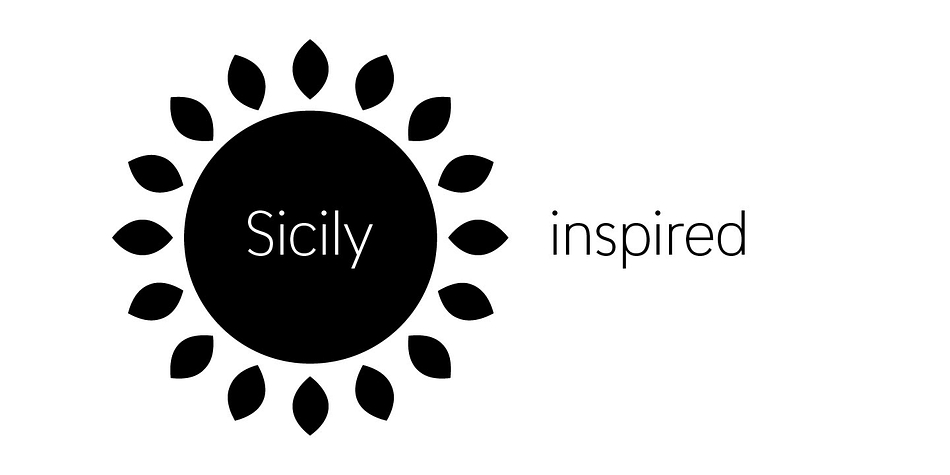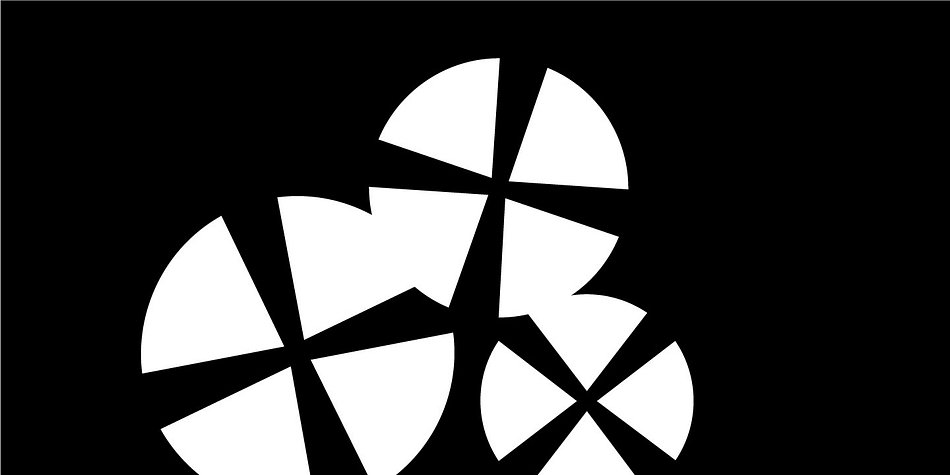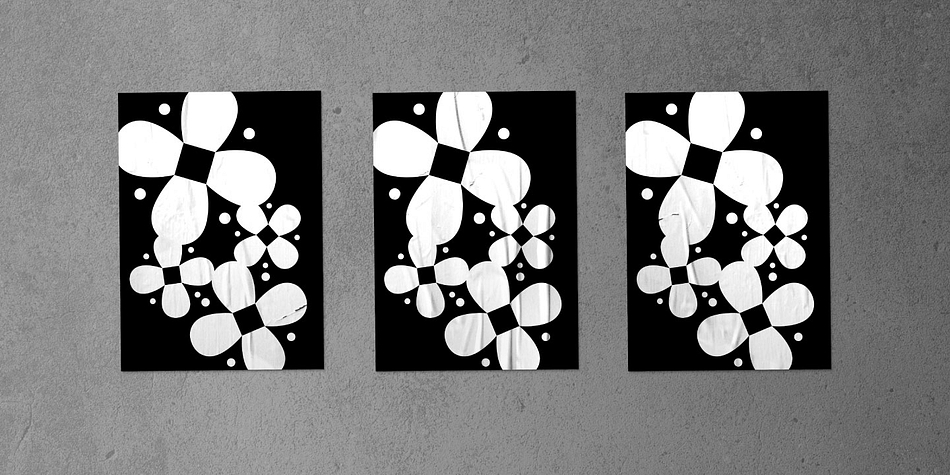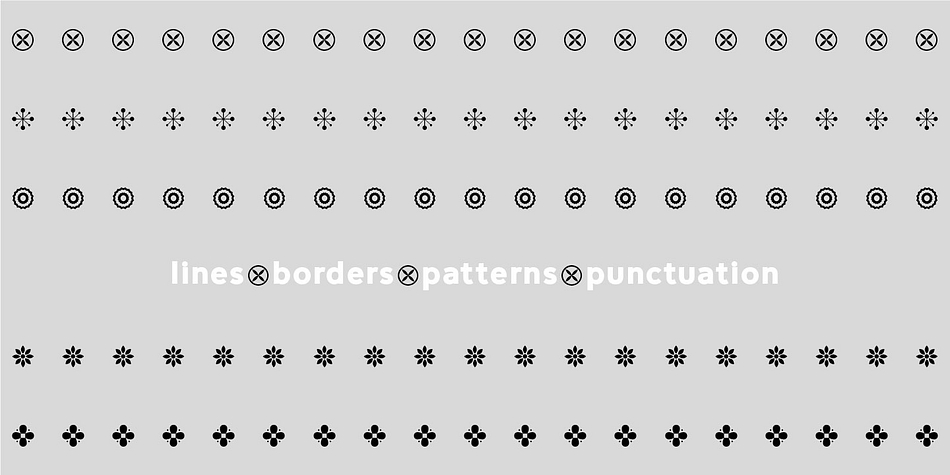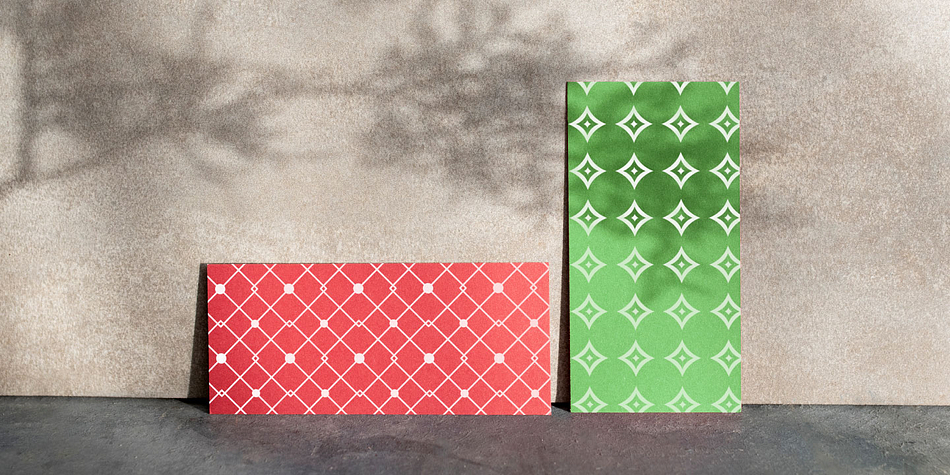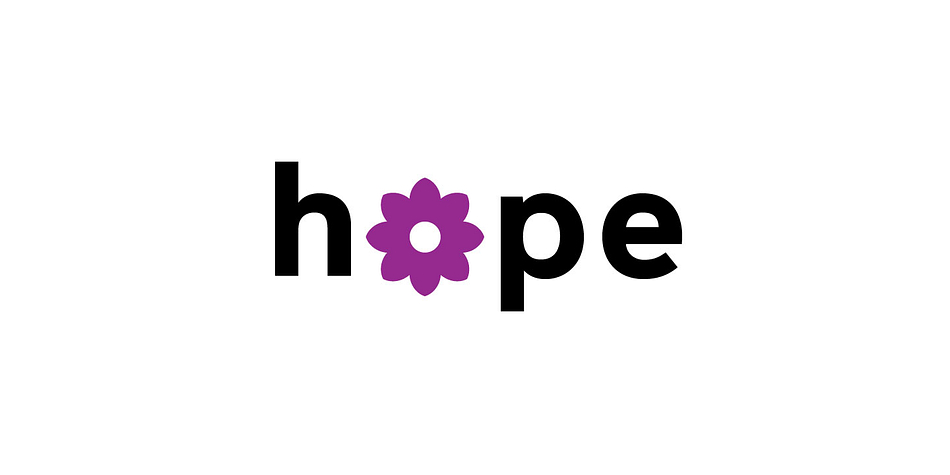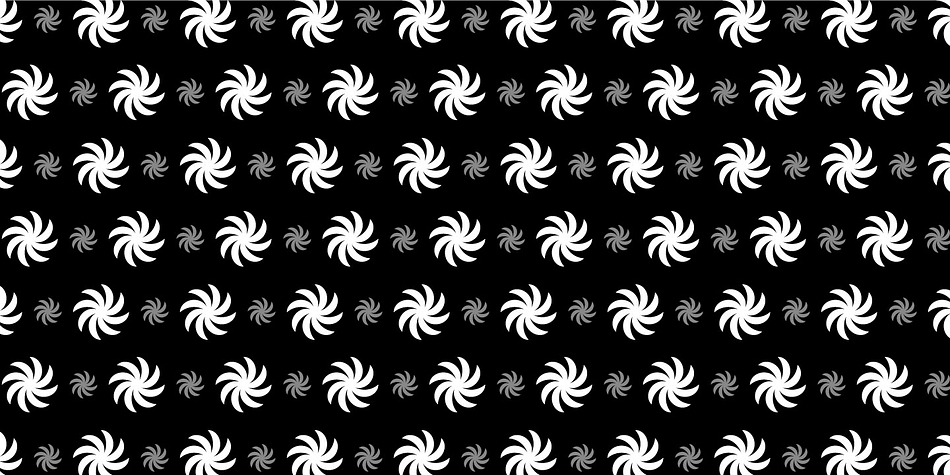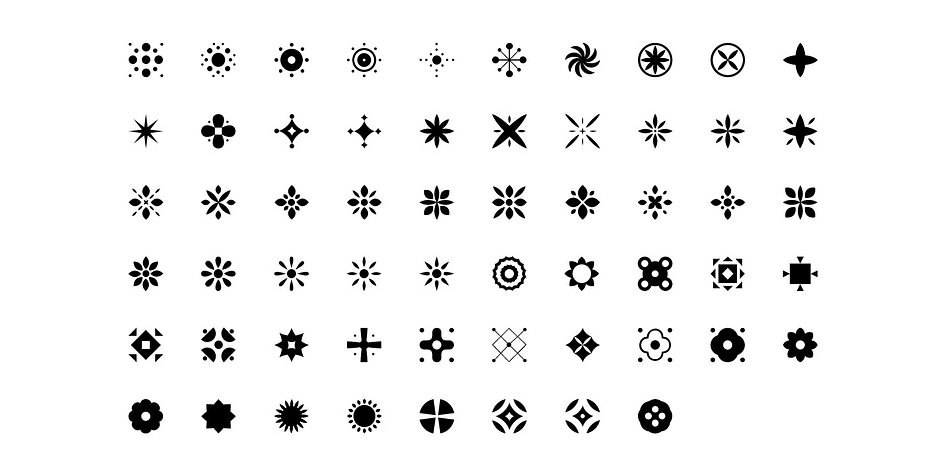
Designed by Donald Tarallo, Poeta is a dingbat font published by Tarallo Design.
Poeta is a symbol font of floral, sun, and nature motifs with diverse cultural origins. This font began with sketches of patterns seen around Sicily; a land rich in poetry.
Designers can use Poeta to make unique line patterns, fields, borders, or other ornamentation. The forms are versatile enough for pure visual embellishment or for creating a festive seasonal or holiday mood. Poeta will surely to add a little poetry to any design project.